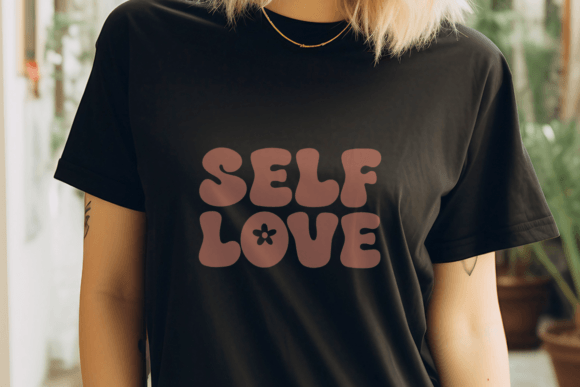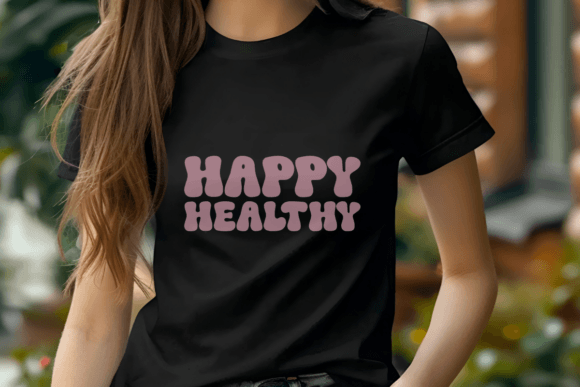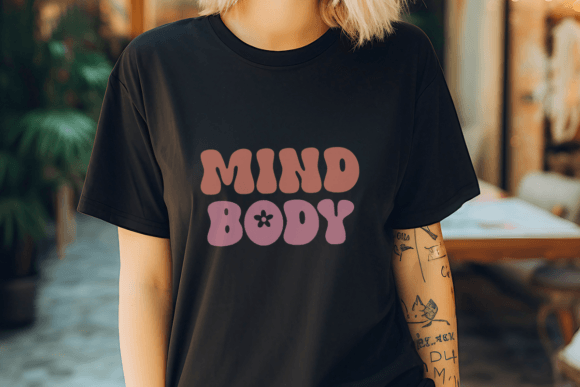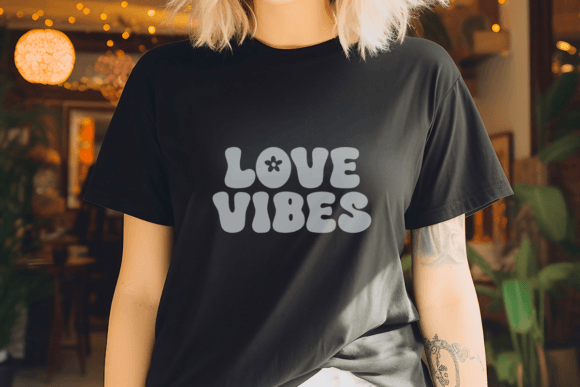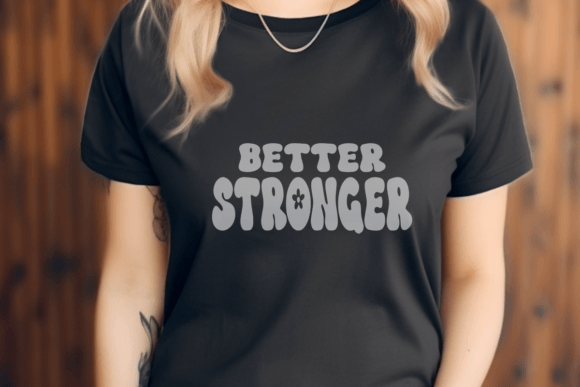
Introduction to Nourish Font
Nourish is a bold retro groovy display font.
a font inspired by retro typography This font is very suitable for Christmas celebrations with a fun retro style.